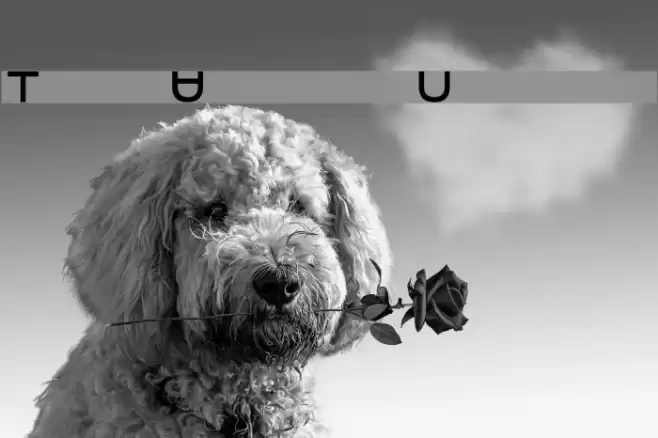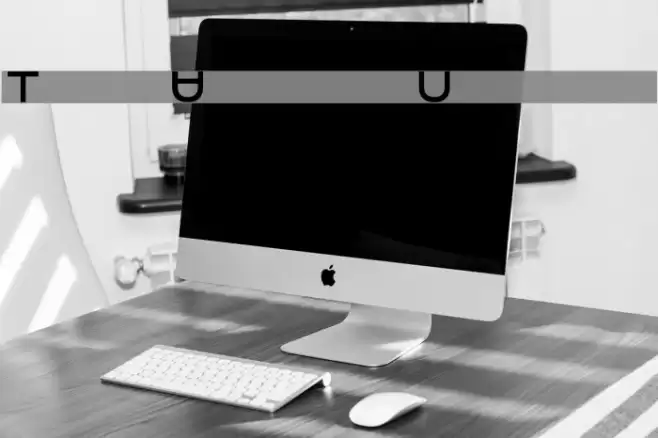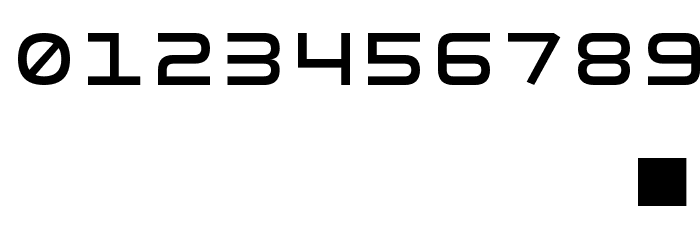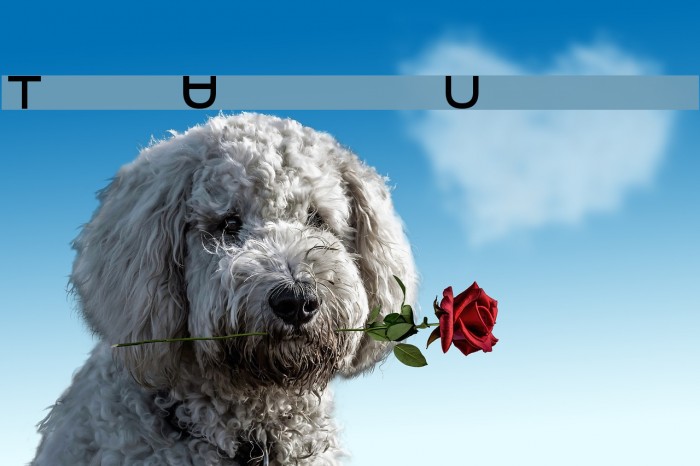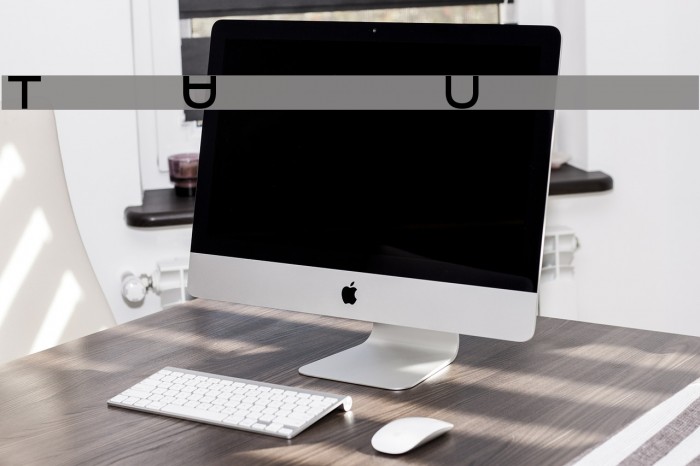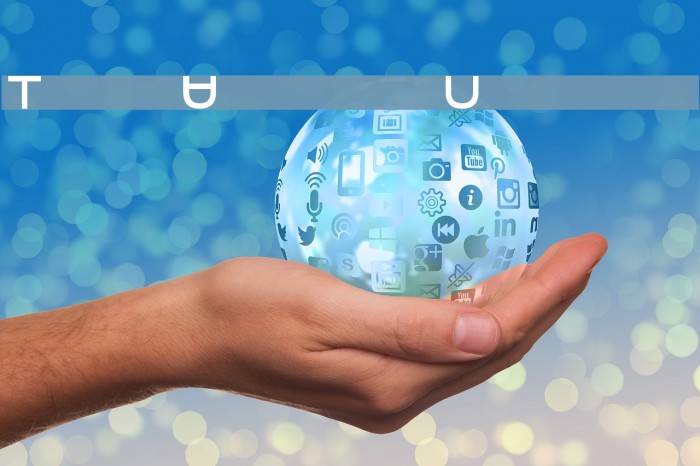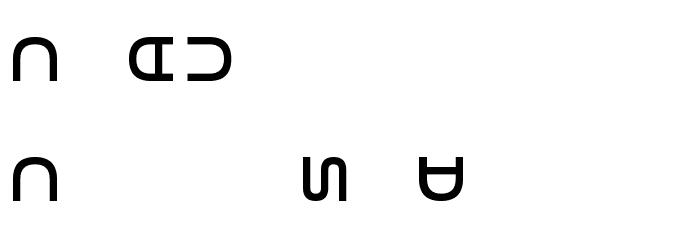
Torturer Upright Font
Torturer Upright Description
This font features a modern, geometric design with a distinct futuristic appeal. The characters are constructed with clean, rounded edges and consistent stroke widths, creating a uniform and cohesive appearance. The uppercase letters exhibit a unique blend of curves and straight lines, while the lowercase letters maintain a similar style, ensuring readability. The numerals are equally well-designed, with a consistent height and width that complements the overall aesthetic. Special characters are included, maintaining the same geometric style, making this font versatile for various applications.
A modern, geometric font with a futuristic and cohesive design from Uncategorized fonts.
- Proposed Projects: Ideal for tech branding, digital interfaces, and modern advertising campaigns.
- Use Case: Headlines, Logos, Digital Interfaces